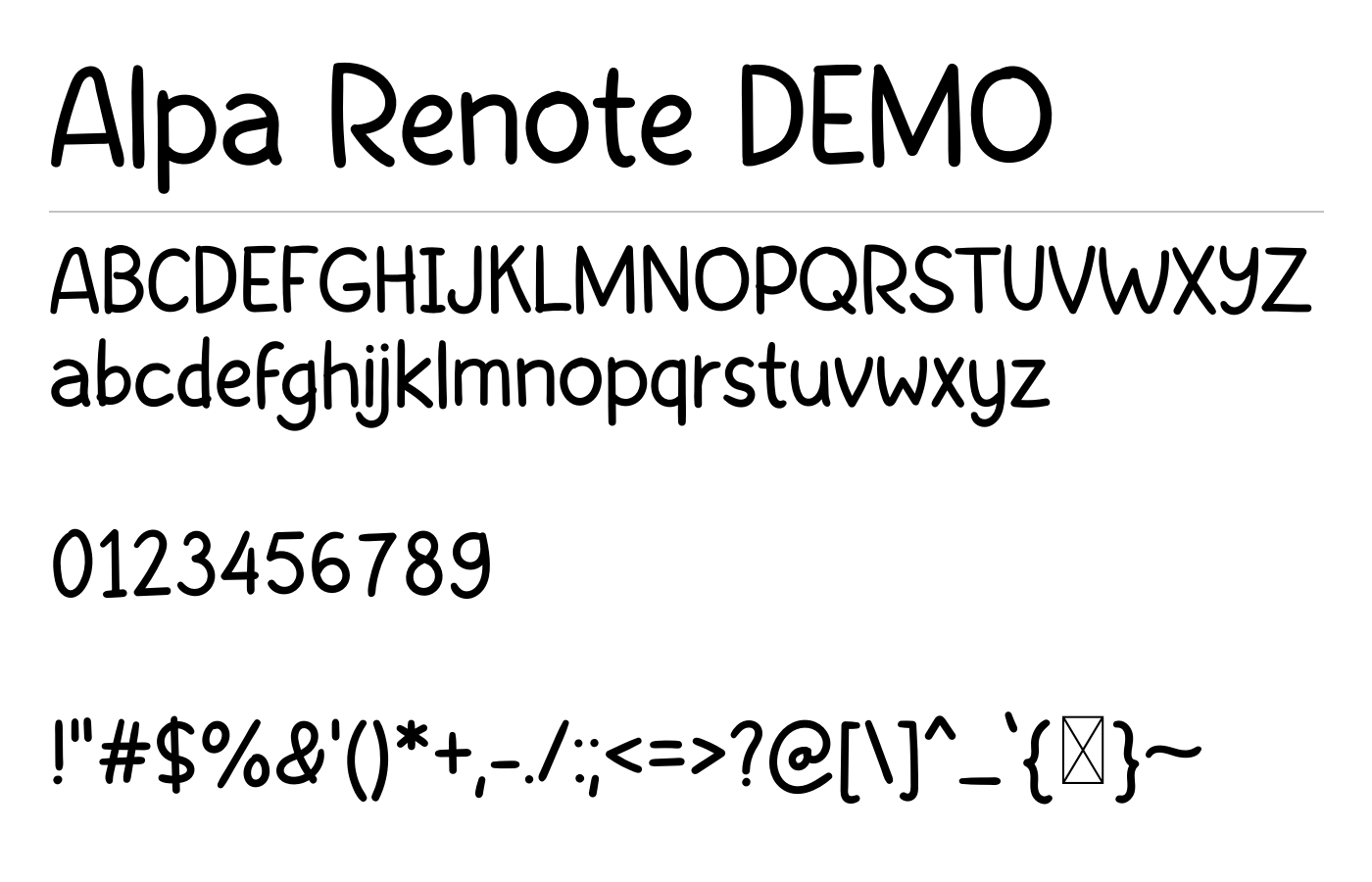
Alpa Renote DEMO is a playful, casual sans serif font with a hand-drawn feel, featuring rounded strokes and moderate x-height that make it easy to read. Its irregular, friendly letterforms create an approachable and informal tone, perfect for creative, educational, or children’s projects. This font works well in headlines, logos, and branding where a warm, personal touch is desired.
Alpa Renote DEMO Font
About Alpa Renote DEMO Font